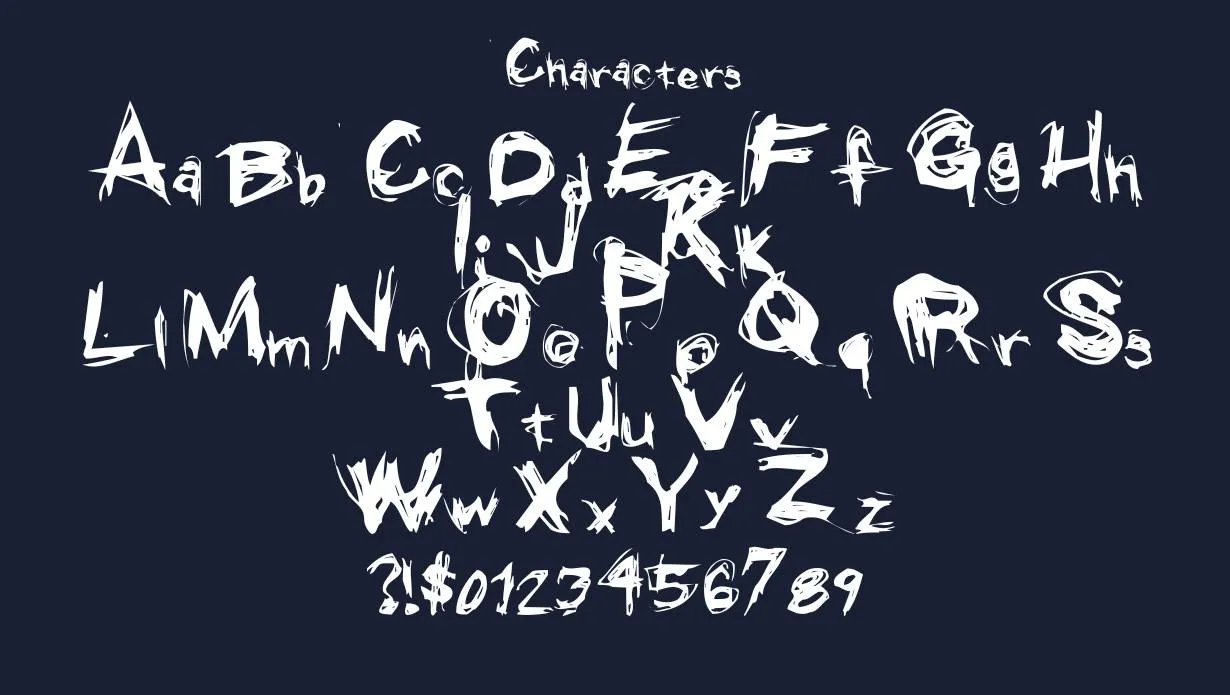
The Grunge font embodies the rugged and distressed look commonly seen in urban decay and street art. Its irregular and gritty letterforms mimic worn-out or spray-painted characters.
Grunge fonts are commonly used in design projects that aim to convey a rebellious or edgy vibe. Whether it’s album covers, event posters, or streetwear branding, the Grunge font serves its purpose by adding a raw and authentic touch to the text, creating a visual language that resonates with the counterculture and alternative scenes.